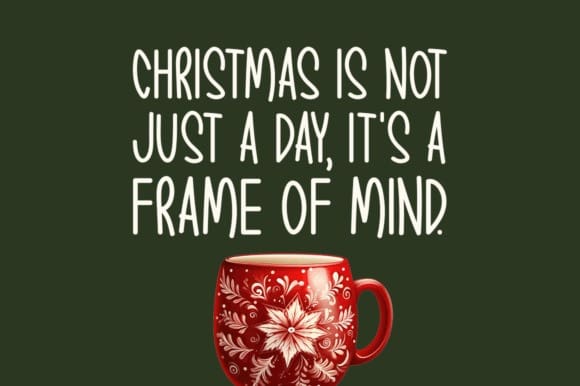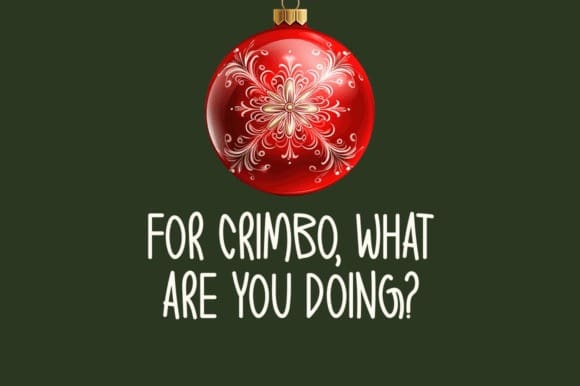
Chrimbo Hand Font
Chrimbo Hand Font is a handwritten font that radiates warmth and charm. Its distinct style adds a unique touch to an array of design possibilities, allowing your creative ideas to flourish.